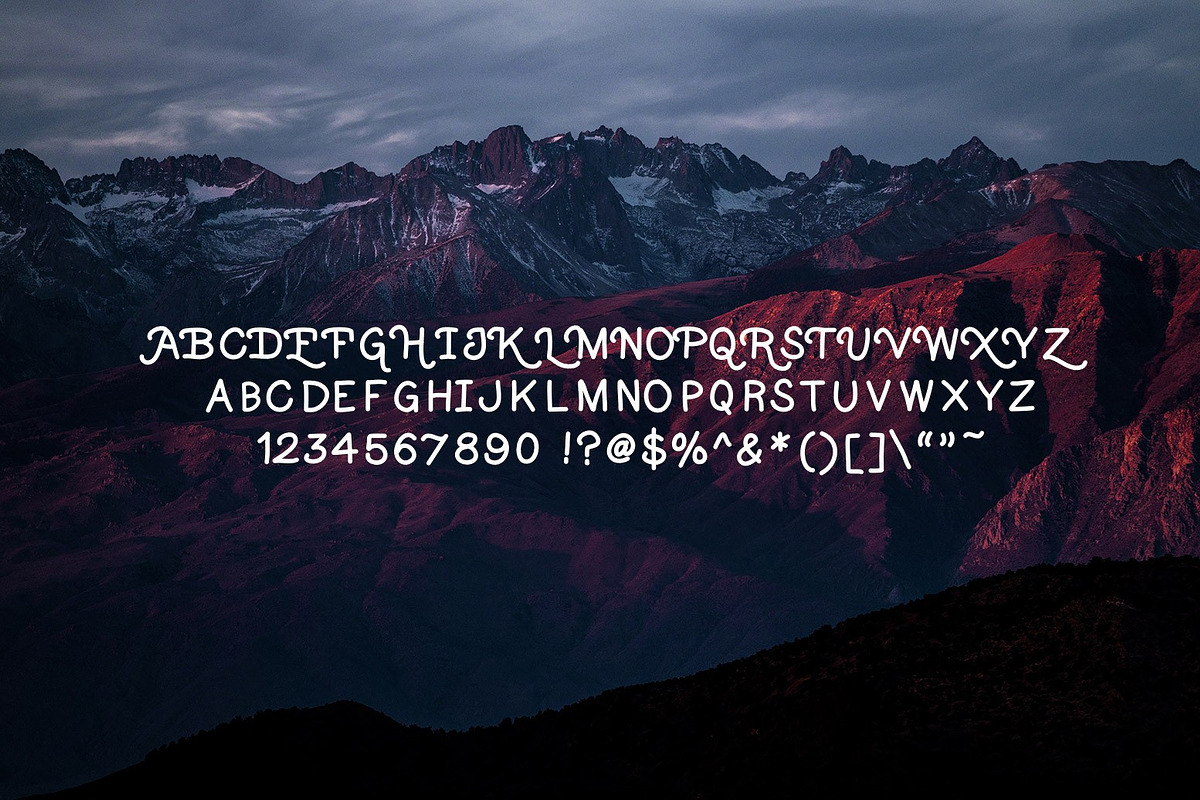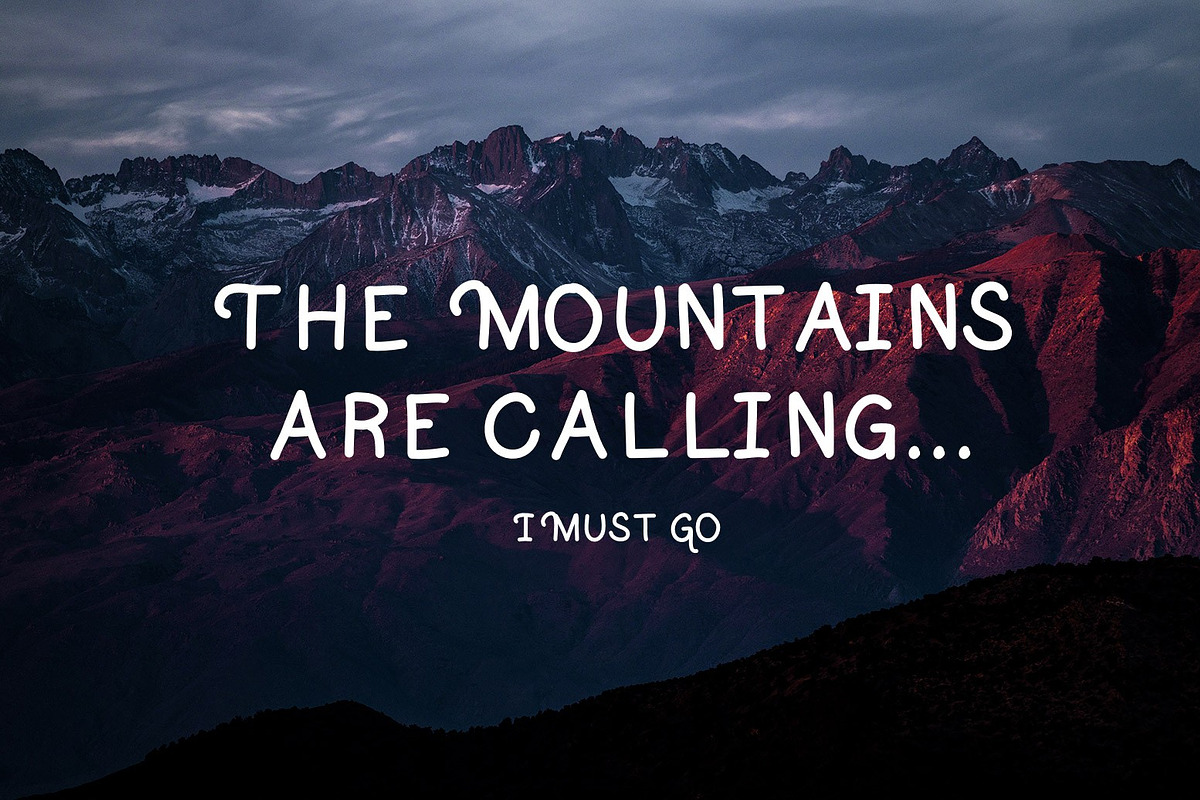
Runaway - Handwritten Font
Runaway - Handwritten Font by WeGraphics is a font selected for branding, posters, packaging, typography.
- Included in this font is all uppercase A-Z letters, lowercase letters, as well as numbers and commonly used symbols.
- It is a clean and simple all uppercase font with alternate decorative capital letters.
- Please note that the uppercase letters are very similar to the lowercase versions.
- Most uppercase letters have a little more flair.
Why Runaway - Handwritten Font is worth a look
Runaway - Handwritten Font by WeGraphics fits naturally into Branding, posters, packaging, typography.